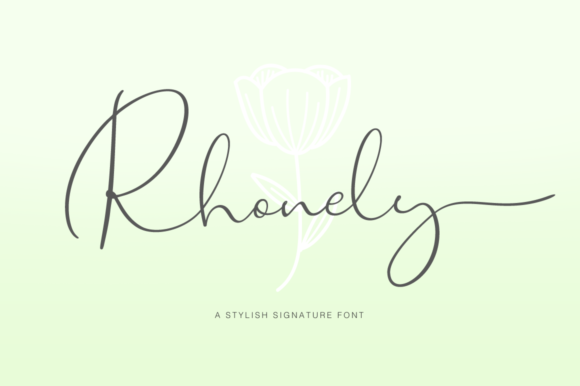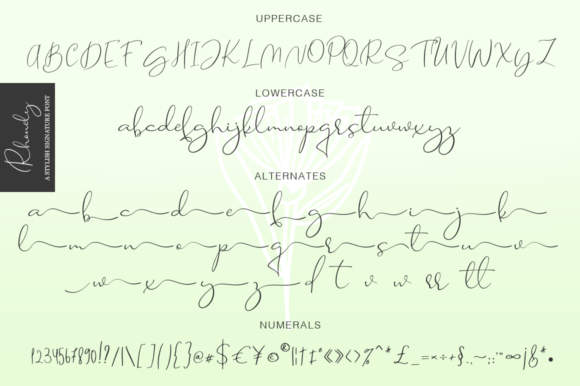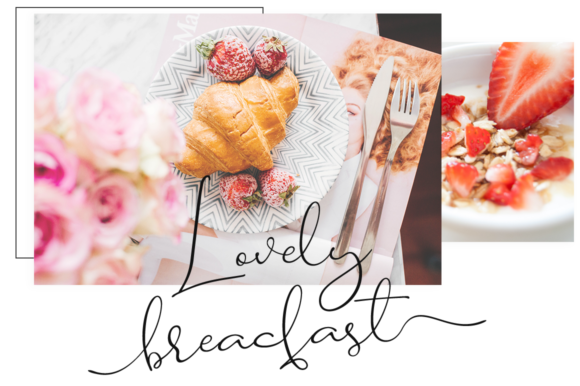
Rhonely Font
About Rhonely Font
Rhonely is a stylish signature font which is ideal for branding and decorating your project. With it’s fine lines and swashes, Rhonely has a feminine look and feel.